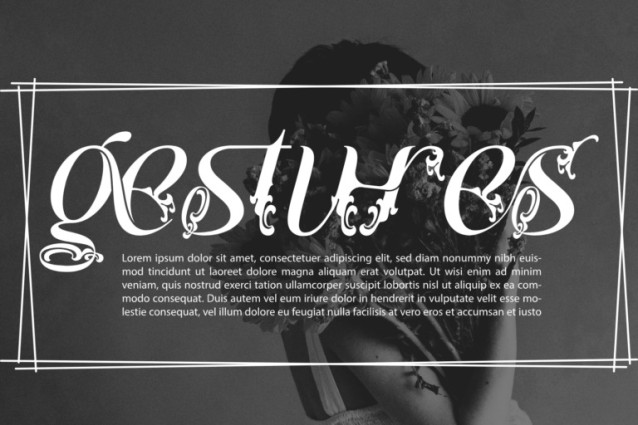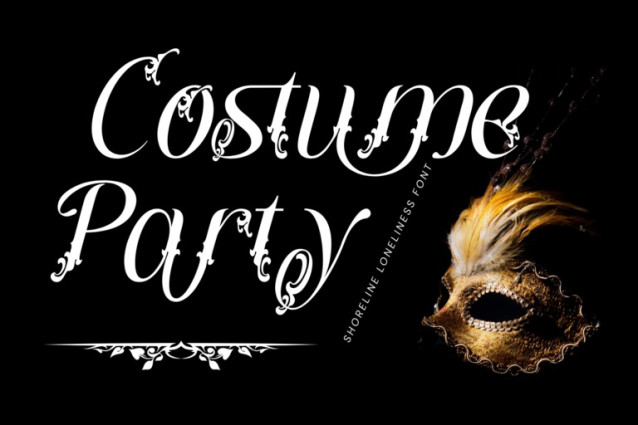
Shoreline Loneliness Font
Shoreline Loneliness Font – Baroque Font is an elegant calligraphic display font inspired by the romanticism of baroque ornaments and poetic solitude. Every character is adorned with delicate swashes, bold contrasts, and flourishes that flow like waves — making it ideal for book covers, perfume branding, posters, wedding invites, or melancholic music visuals.
The font seamlessly blends classic letterforms with artistic elegance, evoking a sense of longing and dramatic flair. It’s not just typography; it’s visual storytelling through curves and grace.
Font Features:
Uppercase & Lowercase Letters
Around 100 Artistic Ligatures
Accented Characters for multilingual support
Flourished Alternates for romantic headlines
About 100 ligatures combined with Stylistic Alternates Font: